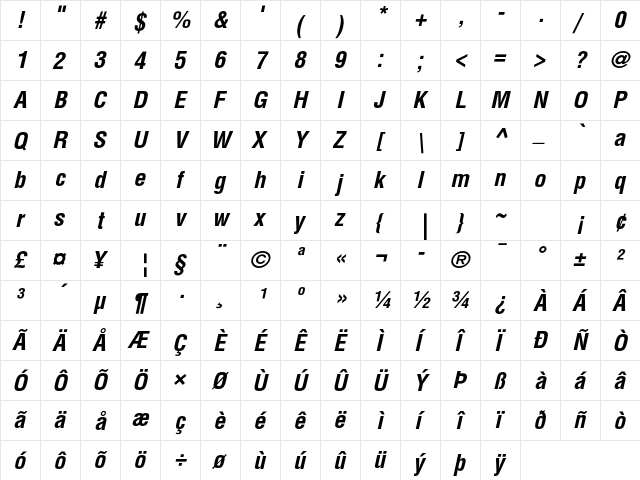
Helvetica LT Std Bold Condensed Oblique Font Preview
| Style | Bold Condensed Oblique |
| Designer | Max Miedinger |
Design Context for Helvetica LT Std Typeface
Helvetica LT Std is a composed and adaptable typeface that performs quietly and consistently across a wide range of design contexts. Its italic angle brings a sense of urgency and motion to the letterforms. The heavy weight commands attention and anchors typographic hierarchies. Its narrow stance lets it pack a punch even in space-constrained designs.
Pro Tip: Use Helvetica LT Std for emphasis, pull quotes, and subheadings where its slanted energy can add rhythm to the layout.